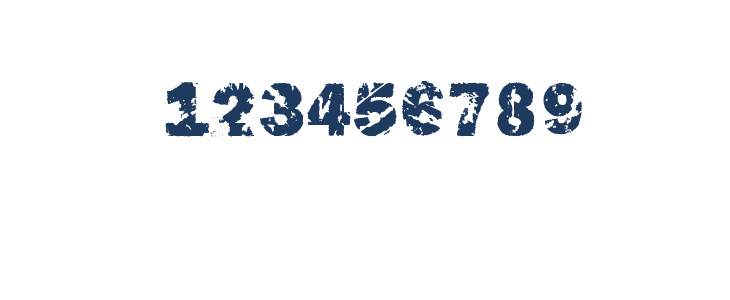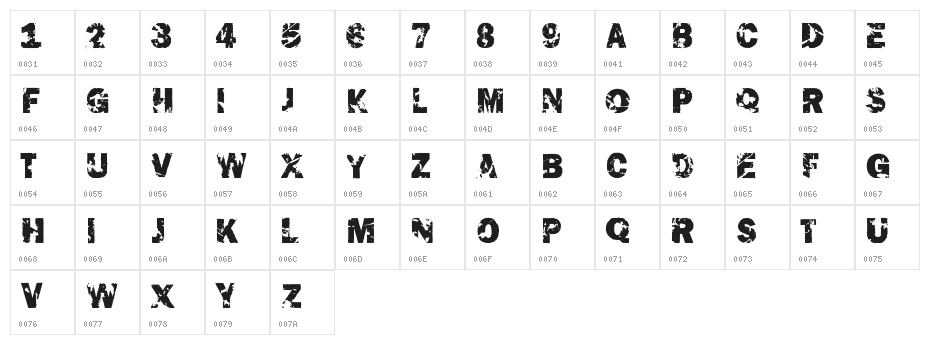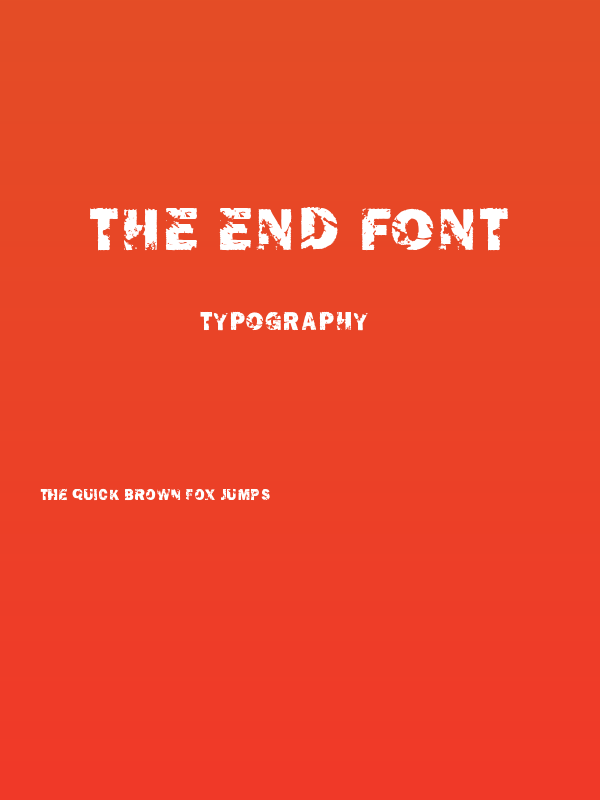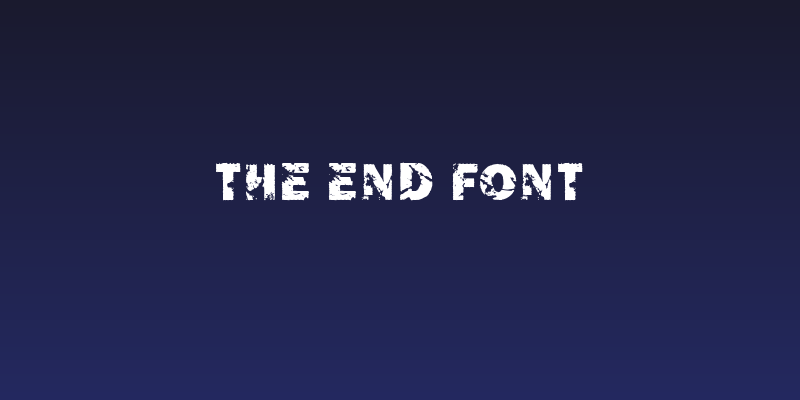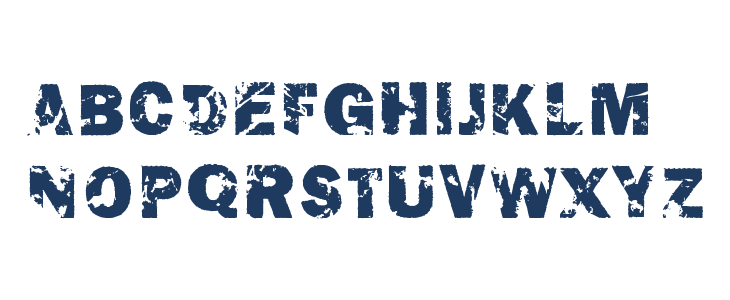
The End Font Font
The End Font Description
This font features a distressed, grunge style with a bold and impactful appearance. The characters are heavily textured, giving them a worn and weathered look, reminiscent of eroded or decayed surfaces. The uppercase letters are uniform in height, while the numbers maintain a consistent style with the alphabet. This font's rugged aesthetic makes it ideal for designs that require a raw, edgy feel. The irregularities in the texture add a dynamic and energetic quality, making it stand out in any project.
| Overall Style | Grunge, Edgy, Distressed |
| Proposed Projects | Ideal for music album covers, posters, urban-themed designs, and any project needing a gritty, rebellious look. |